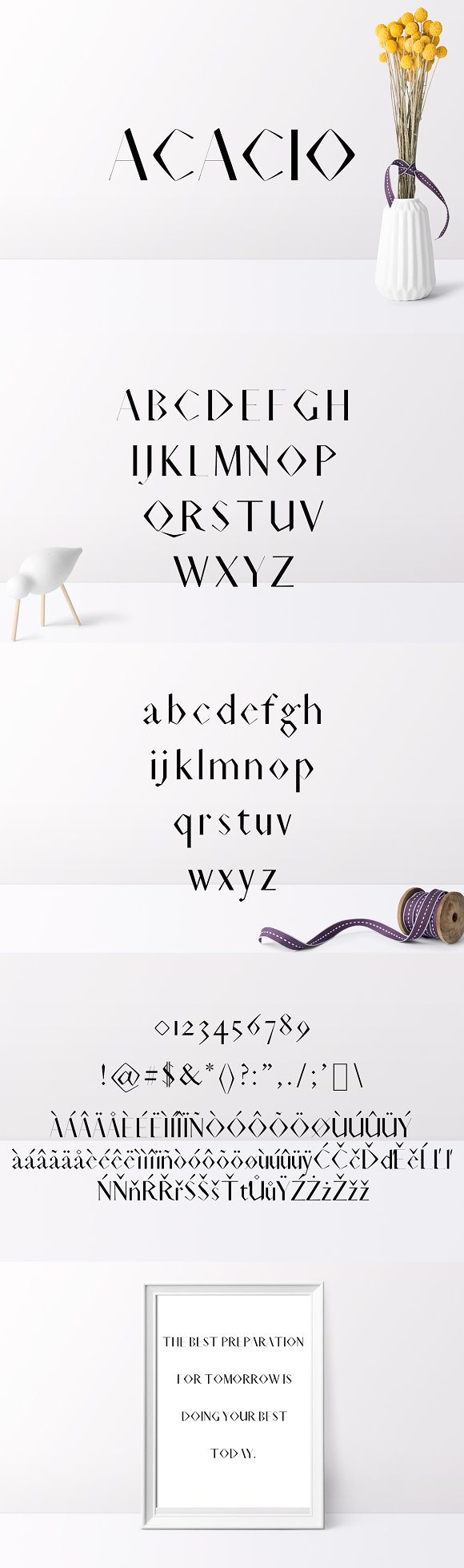
Acacio Serif 2 Font Family Pack
Acacio Serif 2 Font Family Pack features unique and modern serif look and feel. Perfect for gorgeous logos, titles, web layouts and branding. It looks gorgeous in all caps with a wide-set spacing if you want to try a classy look, or beautiful on its own in capital and lowercase letters for something completely timeless.